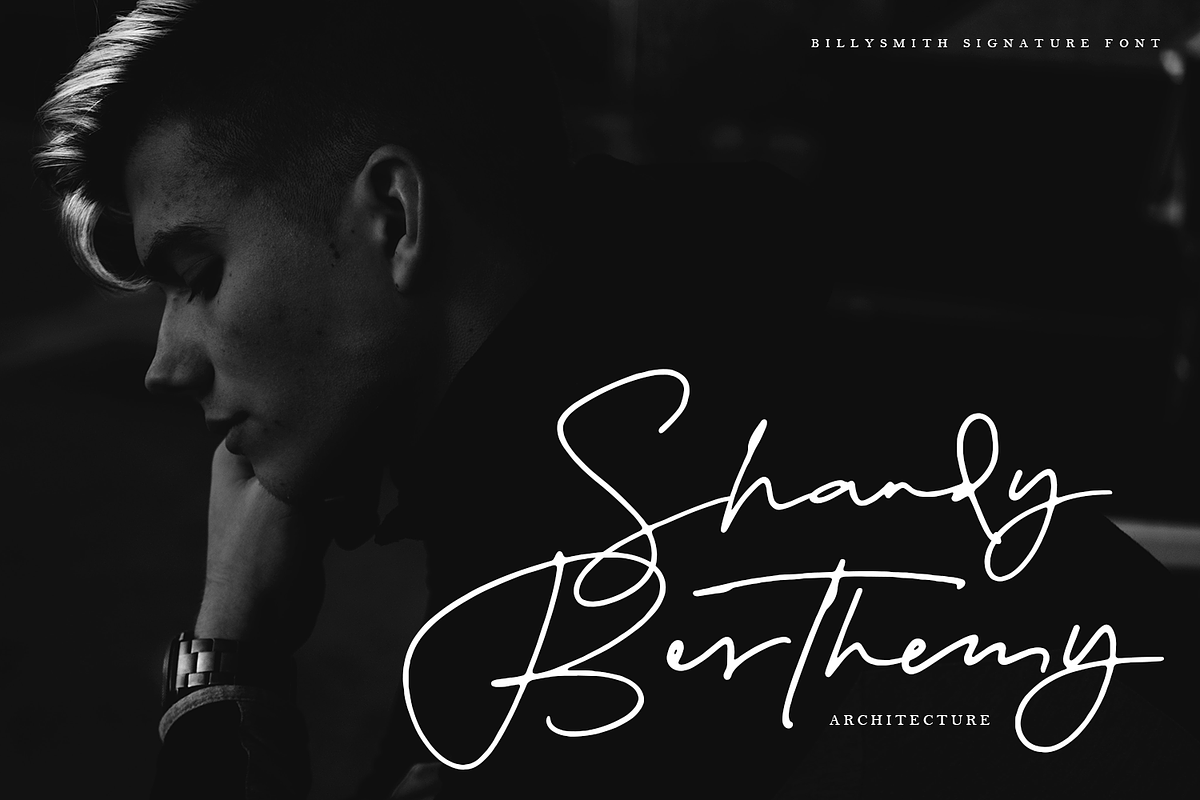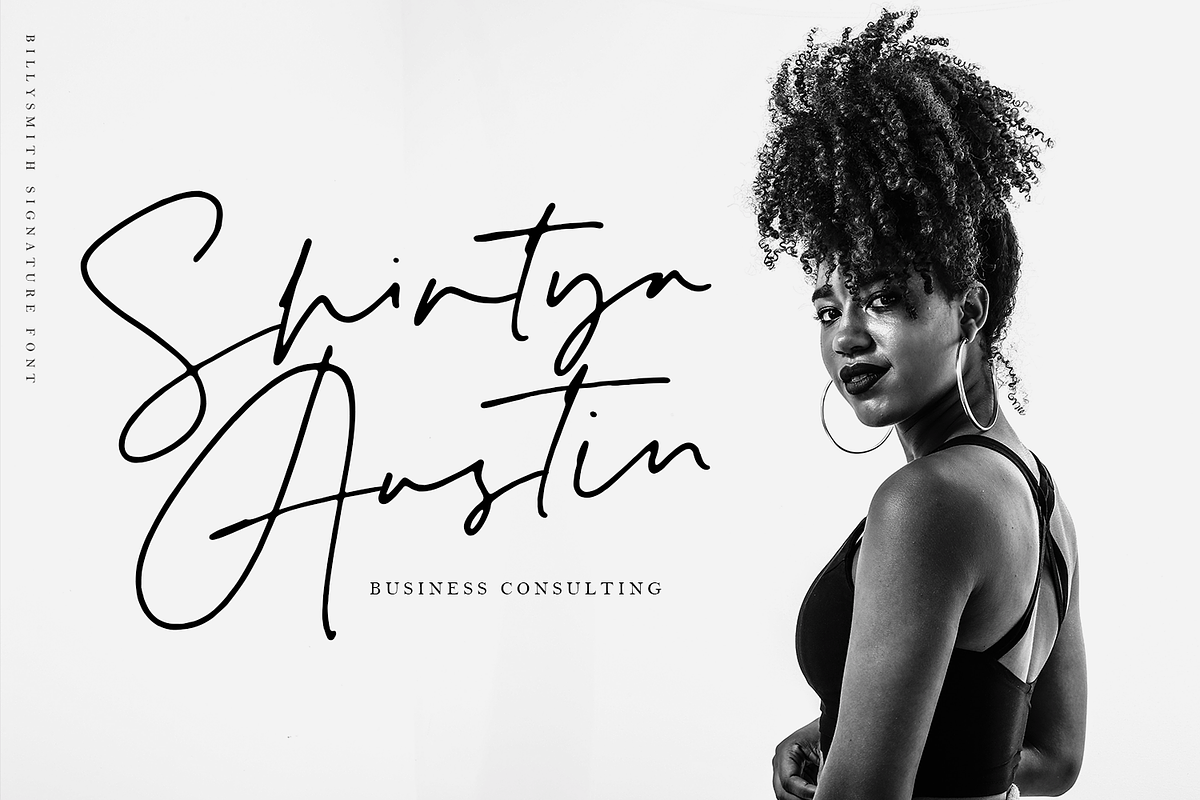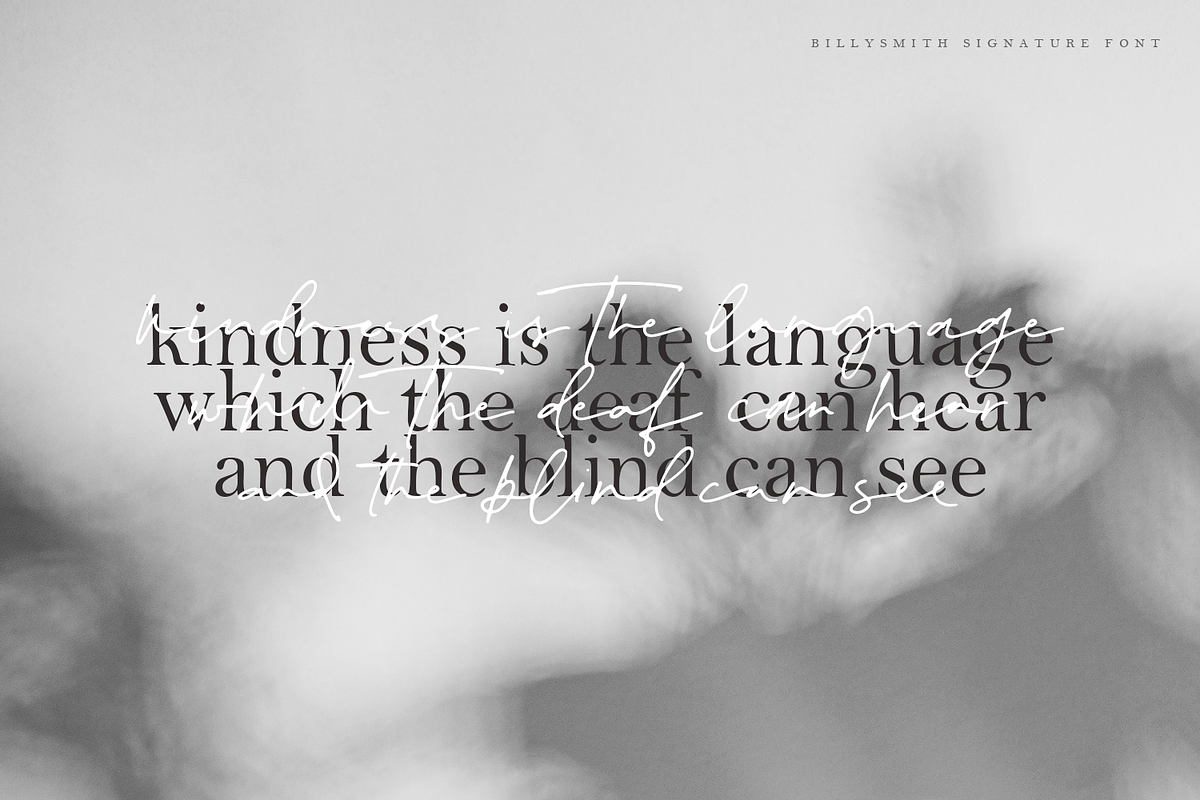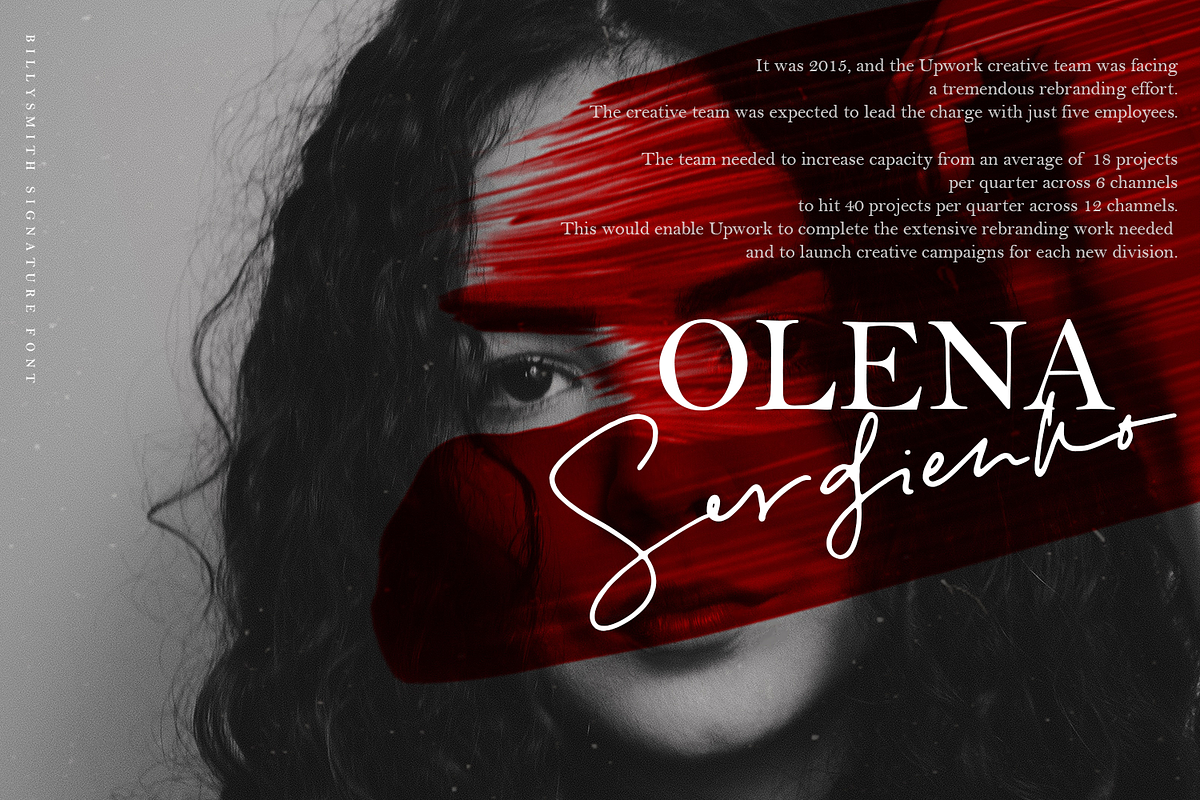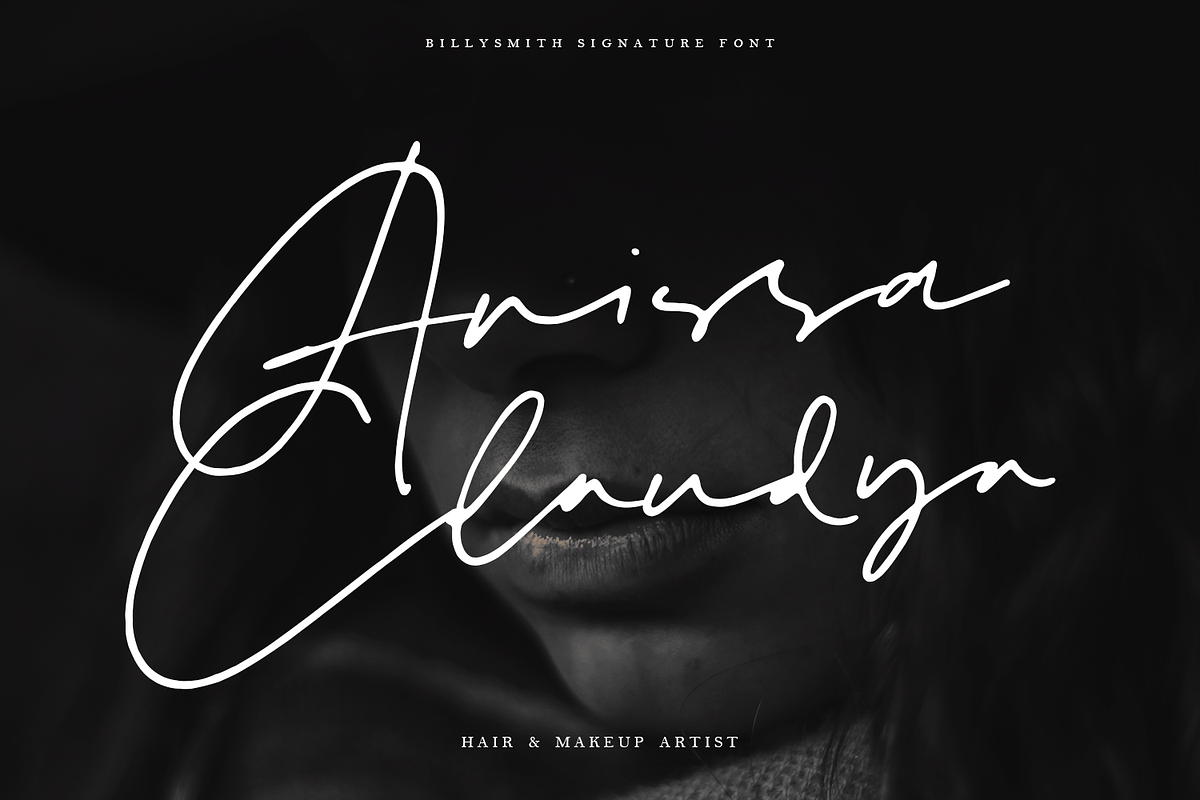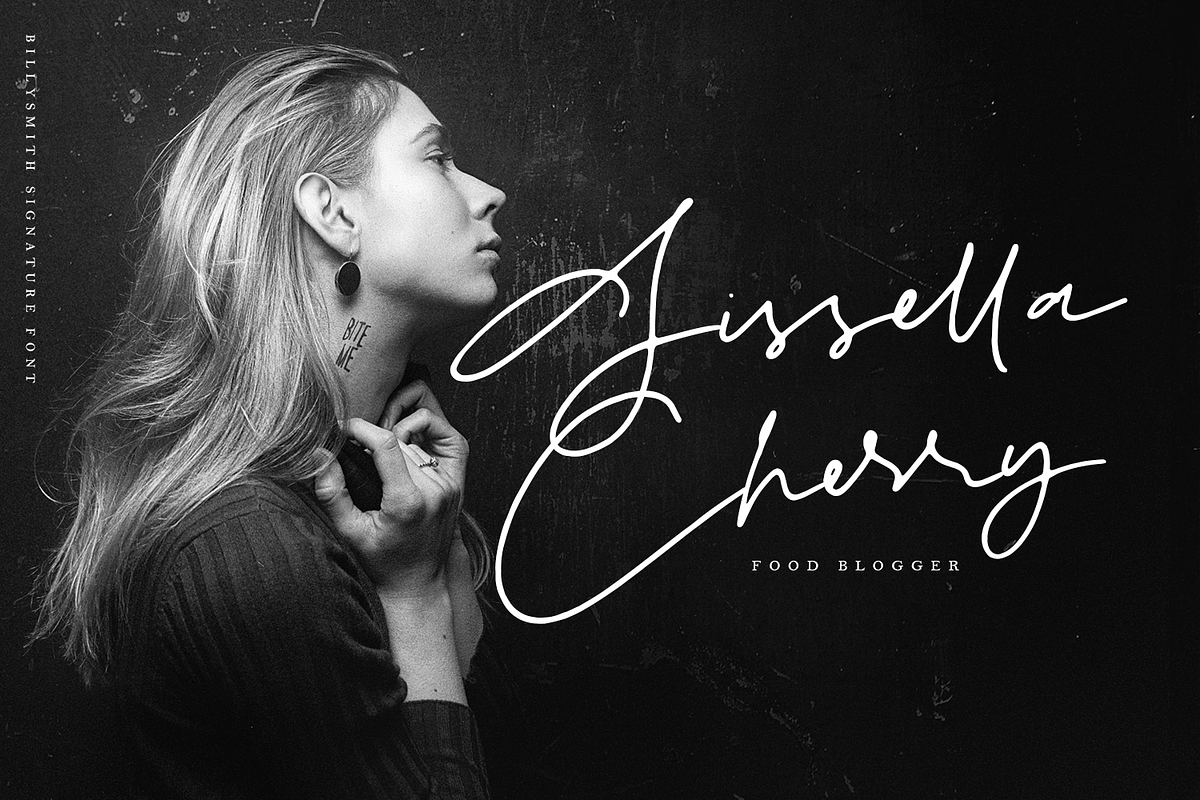
Billy Smith - Signature Font
Billy Smith a Signature Font. Here I made this font with drawingpen 0.5, so that I can write my handwriting here. Billy Smith provides 176 ligature, which is useful for displaying this font to be like really writing with your own hands. I also added 2 alternative lowercase letters, to add the impression that this is truly like the original handwriting.
Billy Smith a Signature Font I recommend more for personal logos or brands that use fonts with signature font types. but this font can also be used for various projects such as invitations, stationery, social media, weddings, and can be combined with various types of serif fonts to perfect the project you want to work on.
- Billy Smith provides 176 ligature, which is useful for displaying this font to be like really writing with your own hands.
- I also added 2 alternative lowercase letters, to add the impression that this is truly like the original handwriting.